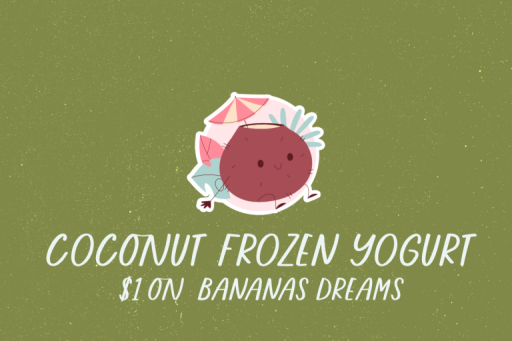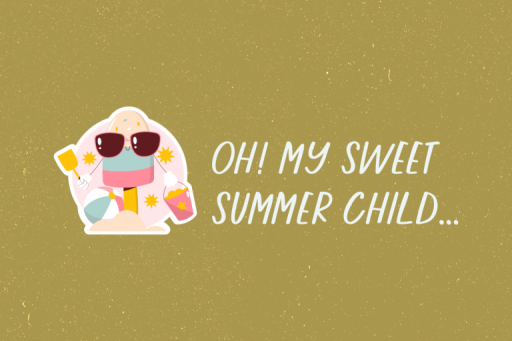
Summer Friday Font - Commercial Use From Jimtype Studio
Summer Friday Regular
Summer Friday – Handwritten Font
Need Free font? Get a handwritten font right away. ‘Summer Friday’ font has All caps characters that are perfect for greetings cards, invites, quotes, merch and so much more.